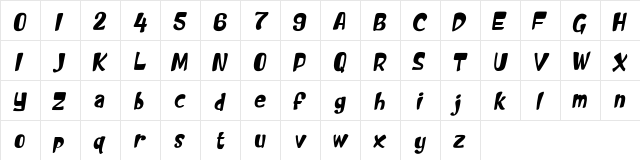
Gamejot Font Preview
Gamejot Gamejot
Gamejot Font Details
| Style | Gamejot |
| Foundry | Cundrawan |
| Designer | Cundrawan (cove703) |
Design Context for Gamejot Typeface
Gamejot is a composed and adaptable typeface that performs quietly and consistently across a wide range of design contexts.